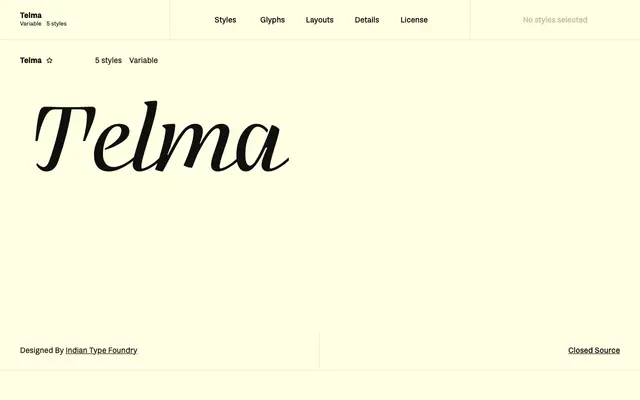
Telma
Fontshare · Jitka Janečková · 2021
An informal script family by Czech designer Jitka Janečková, built on thick-thin contrast with swash capitals, oldstyle figures and ligature support across five weights.
Designed by Jitka Janečková and released through Fontshare in 2021, Telma spans five weights from Light to Black, with thick strokes growing heavier at each step while the thins remain consistent. Several uppercase letters carry swash-like descenders, and lowercase ascenders rise above capital height, giving the face a distinctive rhythm. OpenType ligatures and contextual alternates activate automatically, making it well suited to packaging, greeting cards and magazine headlines on glossy stock.
Fontshare categorises it as Script; the letterforms are drawn with pen-like thick-thin contrast and informal, connected strokes, placing it squarely in the informal script category.